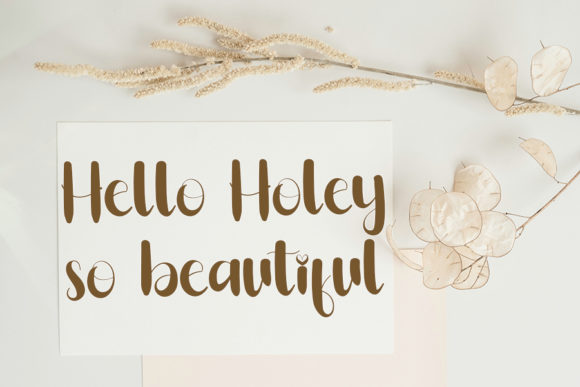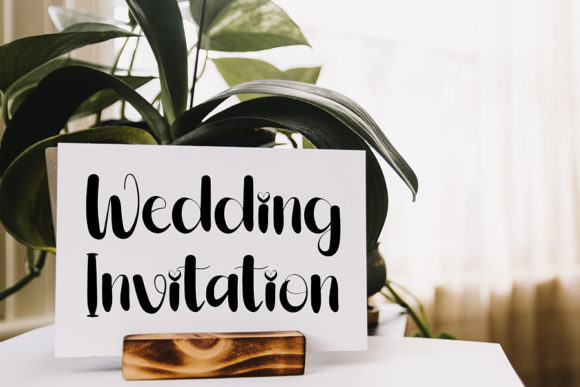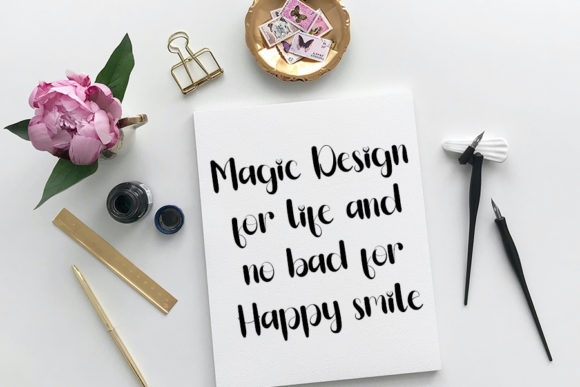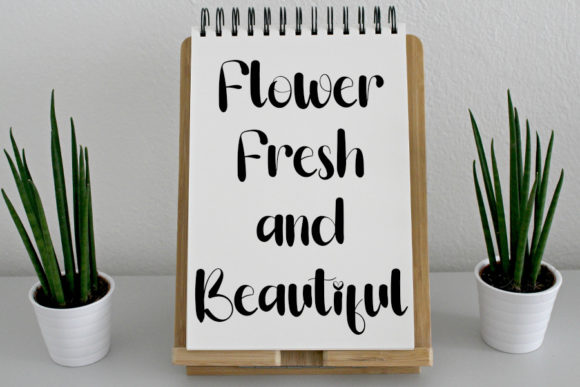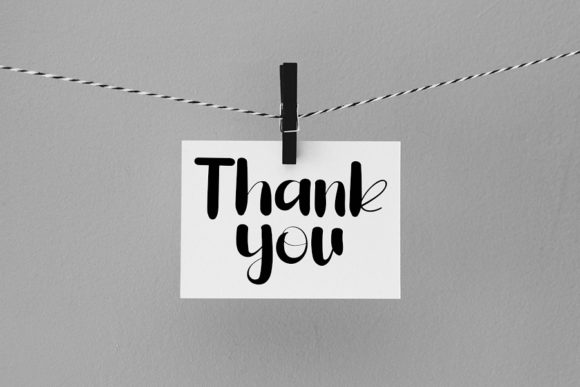
Introducing Amsterdam City Font: The Perfect Blend of Style and Readability
In the world of typography, fonts play a crucial role in defining the visual identity of a brand or design. For designers and crafters, finding the right font can be a daunting task. However, if you’re looking for a modern, handwritten font that exudes style and readability, look no further than Amsterdam City Font. This stunning font is designed to make your projects stand out, and in this article, we’ll explore what makes it so special.
What is Amsterdam City Font?
Amsterdam City Font is a modern handwritten font that boasts a unique blend of smooth curves and bold lines. Its readability, boldness, and stylishness make it an ideal choice for fashion branding, editorial designs, and a wide range of creative projects. Whether you’re working on a logo, brochure, or social media graphics, Amsterdam City Font is sure to make a lasting impression.
Key Features of Amsterdam City Font
- Modern Handwritten Style: Amsterdam City Font features a modern handwritten style that is both elegant and sophisticated.
- Smooth Curves: The font’s smooth curves give it a fluid and dynamic feel, making it perfect for designs that require a touch of elegance.
- Readability: Despite its bold and stylish appearance, Amsterdam City Font remains highly readable, even at smaller font sizes.
- Bold and Stylish: The font’s bold lines and stylish curves make it perfect for designs that require a statement piece.
Perfect for Fashion Branding and Editorial Designs
Amsterdam City Font is particularly well-suited for fashion branding and editorial designs. Its modern and stylish appearance makes it an ideal choice for fashion magazines, blogs, and social media graphics. The font’s bold lines and smooth curves also make it perfect for logo designs, packaging, and advertising materials.
Why Choose Amsterdam City Font?
So, why should you choose Amsterdam City Font for your next project? Here are just a few reasons:
- Unique and Versatile: Amsterdam City Font is a unique and versatile font that can be used in a wide range of creative projects.
- Easily Readable: The font’s high readability makes it perfect for designs that require a clear and concise message.
- Time-Saving: With Amsterdam City Font, you can save time and effort in finding the perfect font for your project.
- High-Quality Design: The font is designed to deliver high-quality results, ensuring that your projects look professional and polished.
How to Use Amsterdam City Font in Your Projects
Using Amsterdam City Font in your projects is easy. Here are a few tips to get you started:
- Pair it with Other Fonts: Amsterdam City Font pairs well with other fonts, making it easy to create a unique and visually appealing design.
- Experiment with Font Sizes: The font’s readability and boldness make it perfect for use at a wide range of font sizes.
- Use it for Headings and Titles: Amsterdam City Font is perfect for headings and titles, adding a touch of elegance and sophistication to your designs.
In conclusion, Amsterdam City Font is a modern handwritten font that is perfect for designers and crafters looking for a stylish and readable font. Its smooth curves, bold lines, and high readability make it an ideal choice for fashion branding, editorial designs, and a wide range of creative projects. With Amsterdam City Font, you can add a touch of elegance and sophistication to your designs, and achieve professional-looking results.